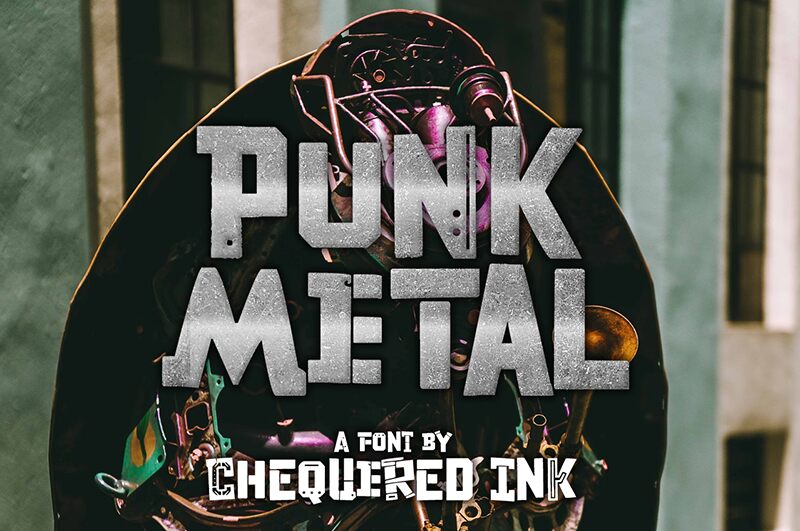
Punk Metal
Punk Metal font is a bold, grunge-inspired masterpiece from Chequered Ink. With a rugged and distorted texture, this impressive display typeface embodies an industrial aesthetic with its rough edges and retro vibe. It’s powerful, brave with jagged characteristics that grant it uniqueness and an exceptional presence within each letter.
Punk Metal is free to use for band logos, CD covers, posters or merchandise whether for concerts or other events. Other ideas are album covers, message signs for haunted houses or parties, costumes stores branding design and product descriptions. Users can also give mental health books that cover sensitive topics like depression a rawer vibe via their heading or cover page.